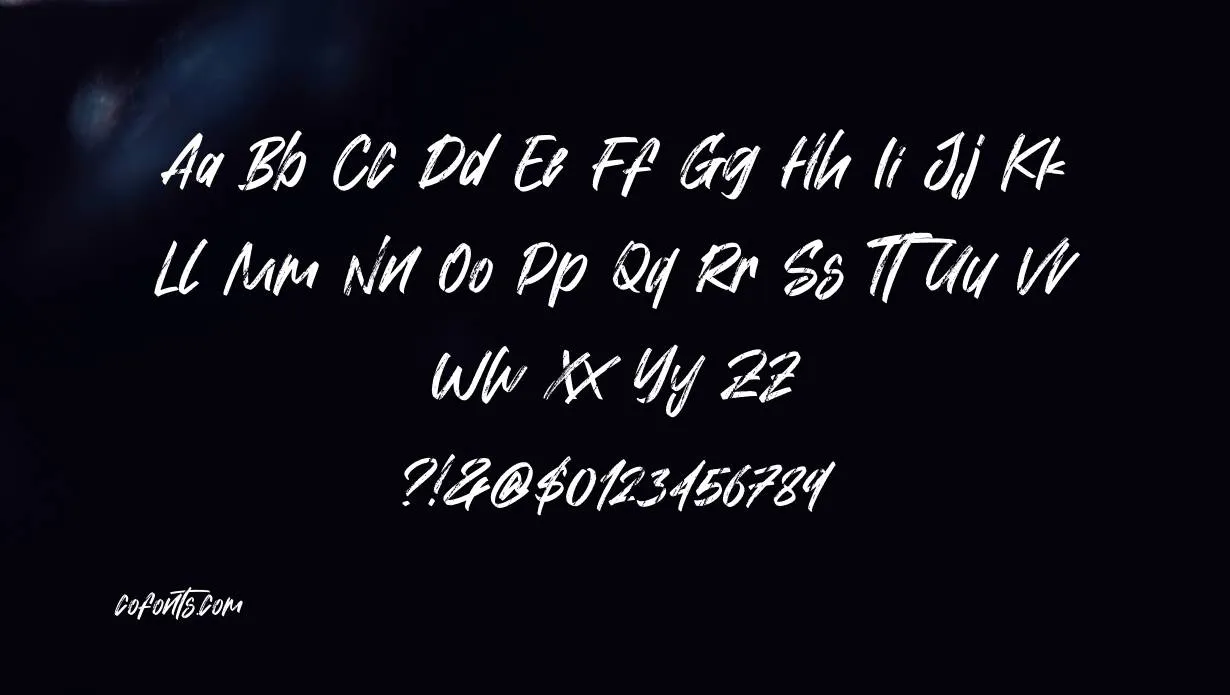
Khurasan designed this beautiful brush text style known as Hiatus Font. As well as being stunning, this font is also perfect for printing and other official purposes.
Style | Brush |
Designer | Khurasan |